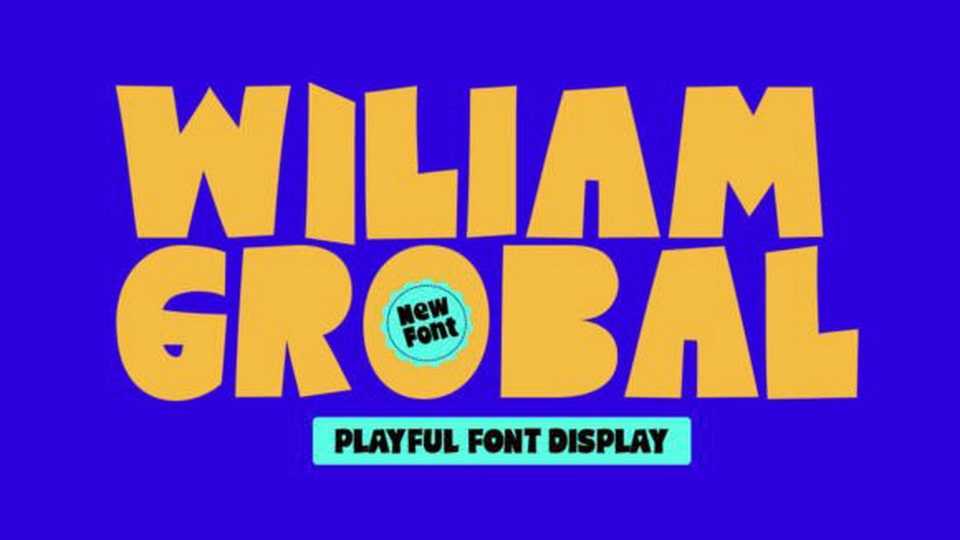
Download Wiliam Grobal font, a cute and colorful display typeface. It embodies playfulness and authenticity and is the perfect choice for any children activity or school project.